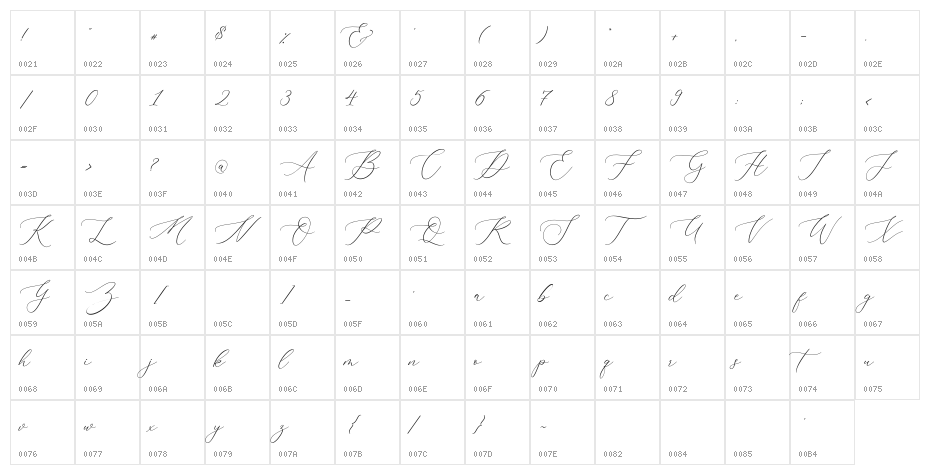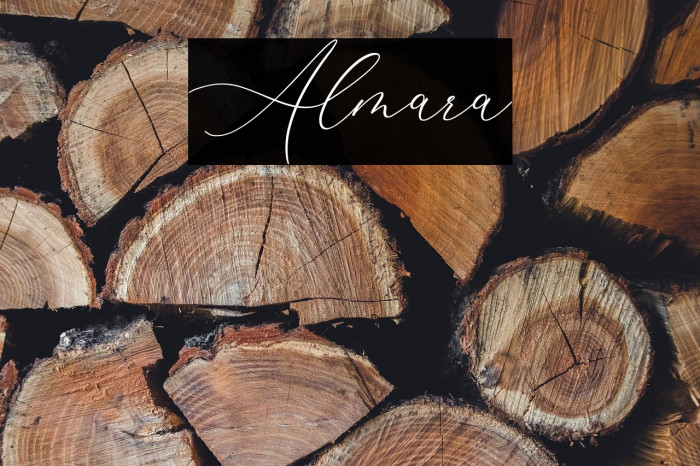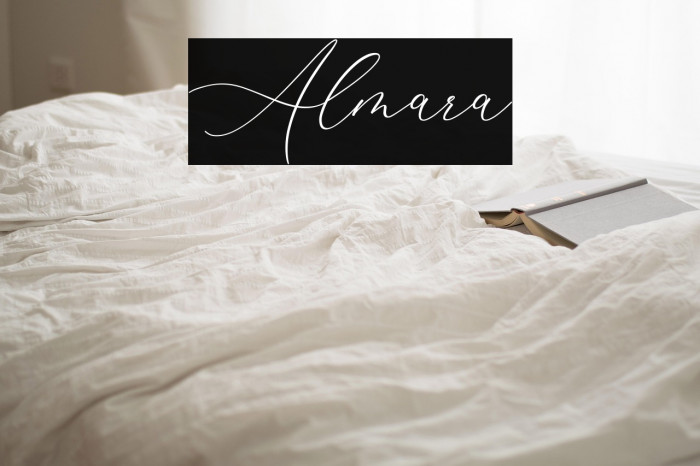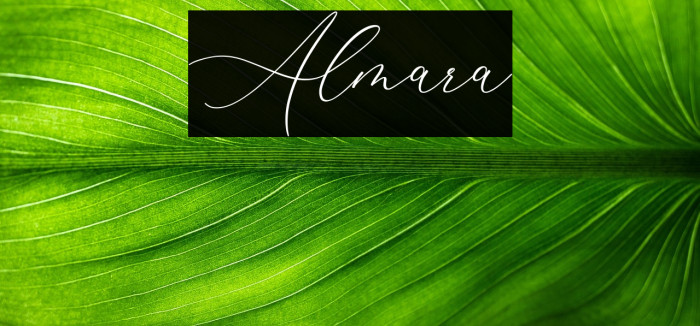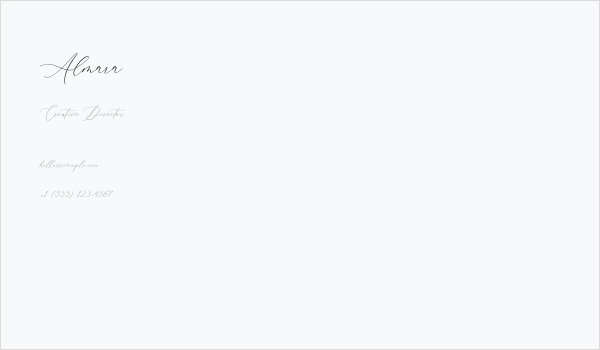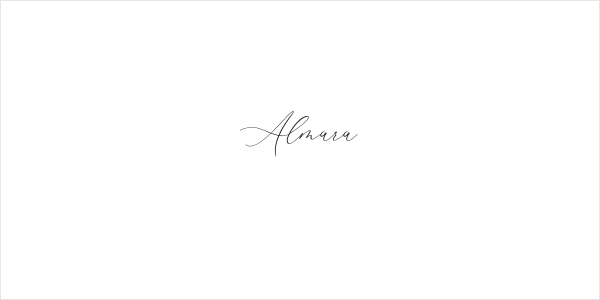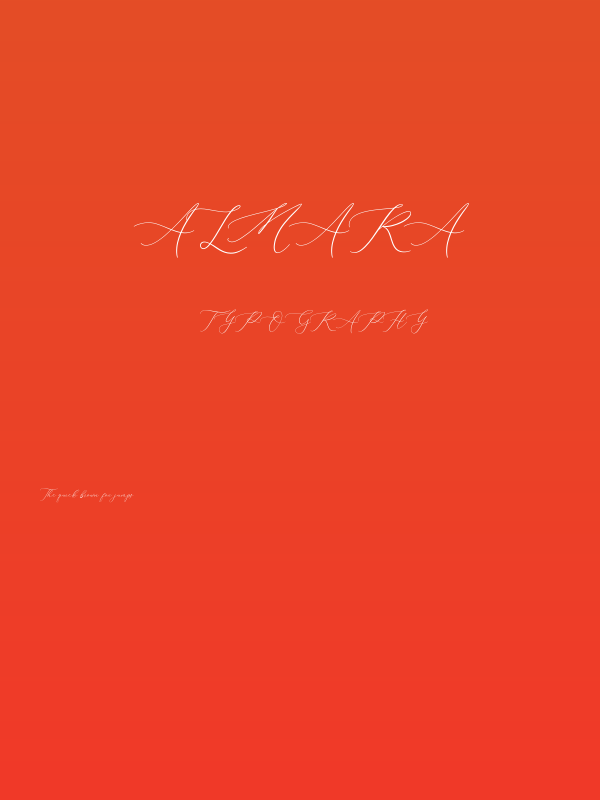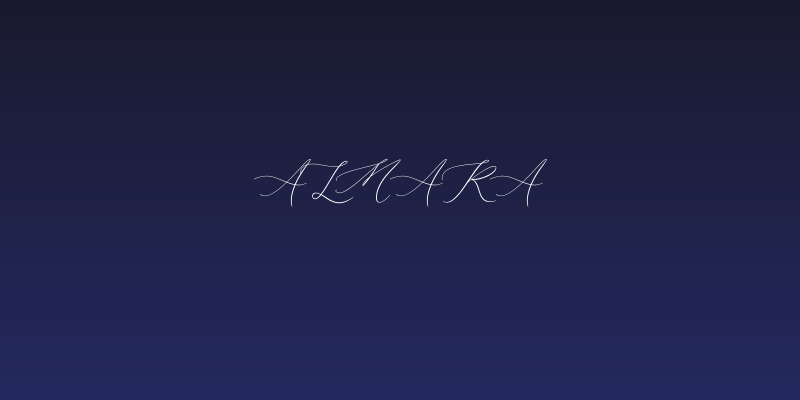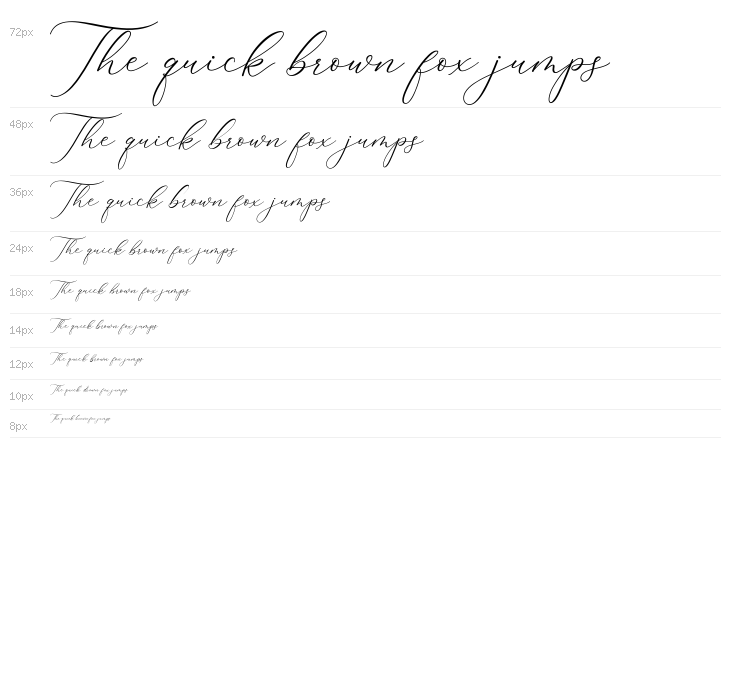
Almara Font
Almara Description
This elegant script font features fluid, cursive strokes that give it a sophisticated and graceful appearance. The characters are connected with smooth, flowing lines, creating a sense of continuity and movement. The uppercase letters are ornate and slightly larger, while the lowercase letters maintain a consistent height, enhancing readability. The numerals are styled to match the cursive flow, adding a touch of elegance to numerical expressions. Special characters are designed with the same attention to detail, ensuring a cohesive look across all glyphs. This font is perfect for projects that require a touch of elegance and sophistication.
| Proposed Projects | Ideal for wedding invitations, elegant branding, greeting cards, and high-end product packaging. |